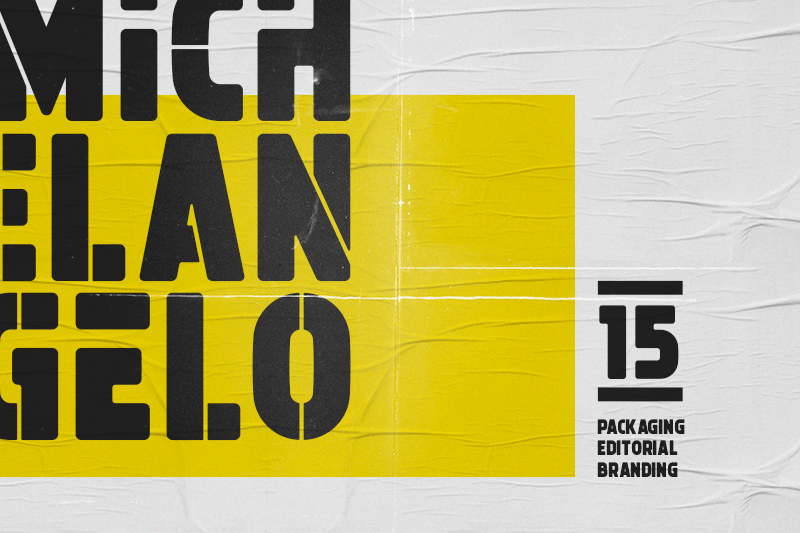
Preview and download Michelangelo Font. Created by Wahyu Rahmawan in Fancy Stencil, Army styles with Free for personal use license.
This font is free for PERSONAL USE only. GET PRO VERSION ONLY FOR $1 - at https://www.onedollarfont.com/michelangelo Michelangelo is a bold font with both of modern and vintage touch. It comes in 15 styles, attractive and bold glyphs, thereby creating more variability. If you need a commercial license, please contact me at hello@onedollarfont.com Thank you Wahyu |